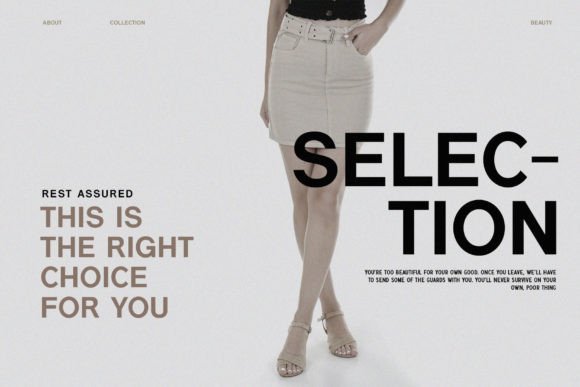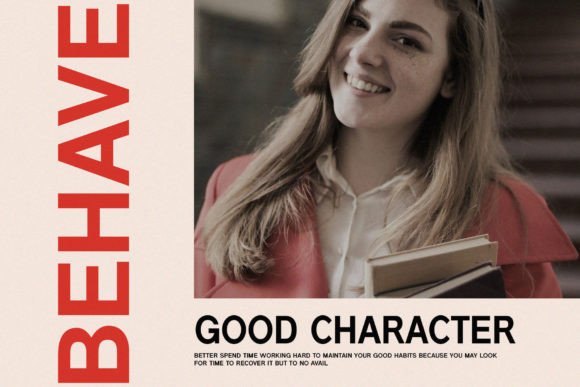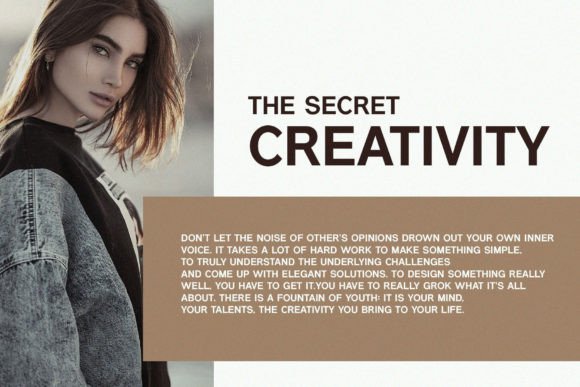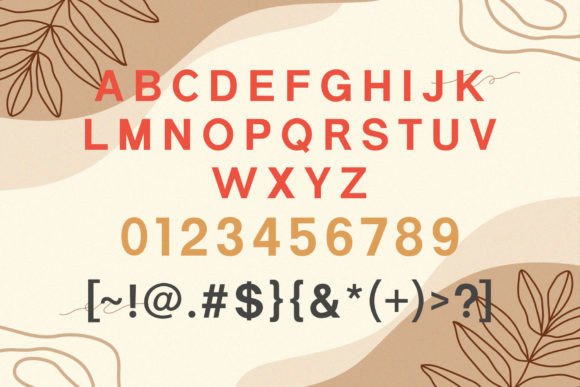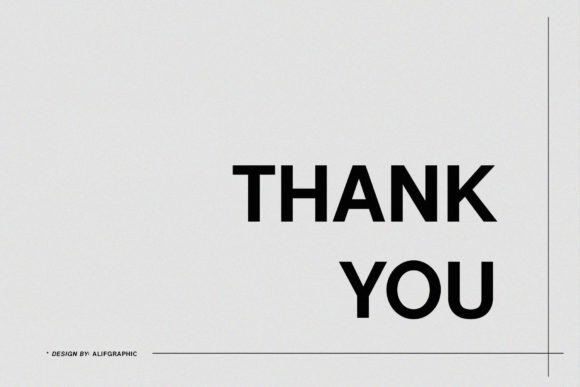
Introduction to Gorestka Font Font
Fonts play a crucial role in design, and the Gorestka Font font is a typeface that brings both character and versatility to any project. Whether you’re working on a branding project, a website, or a print design, the Gorestka Font font offers a unique style that can elevate your work.
A beautiful series of letters is encapsulated in this Gorestka font.
Its neat lettering is perfect for projects that are modern and pleasant Whether you’re using it for crafts, digital design, presentations, or making greeting cards, this font has the potential to become your favorite go-to font, no matter the occasion.
Key Features of Gorestka Font Font
Why Choose Gorestka Font Font?
The Gorestka Font font is more than just a typeface – it’s a design tool that helps you communicate your message with style and clarity. Its unique character set and versatile design make it suitable for a wide range of applications, from elegant invitations to bold headlines.
With its carefully crafted letterforms and balanced proportions, the Gorestka Font font ensures readability and visual appeal across all mediums.
What makes Gorestka Font font special?
The Gorestka Font font stands out with its unique design, exceptional readability, and versatility across various design applications.